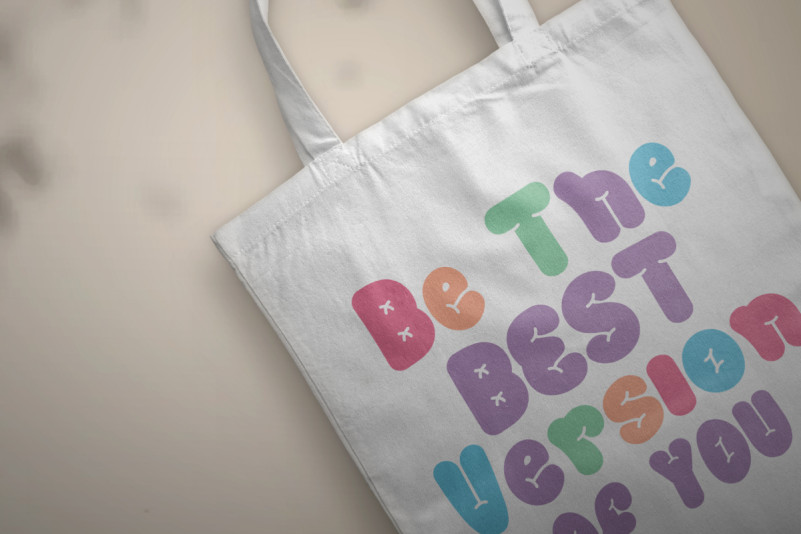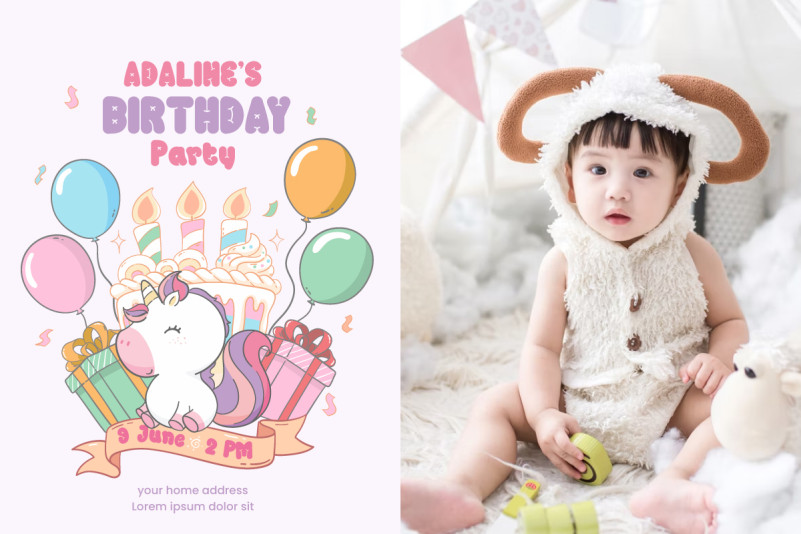
Sweet Table Font
Sweet Table Display Font is a fluffy decorative display font. This font is inspired by a cute inflated balloon that looks soft like a cake. Use this font to see the cuteness of your various designs, such as brochure, business card, custom design, greeting card, invitation, label, poster, product packaging, quote, screen printing, signage, stationery, sticker, website, etc.